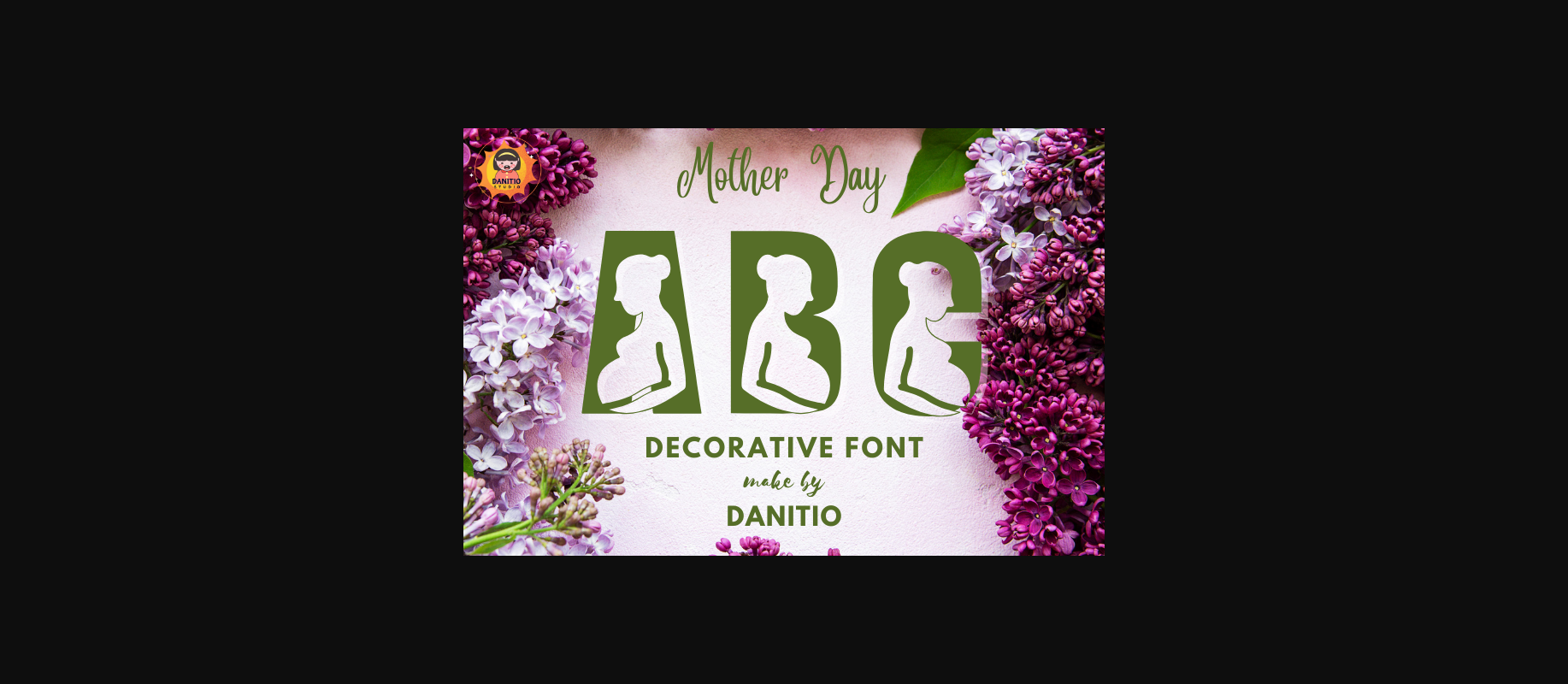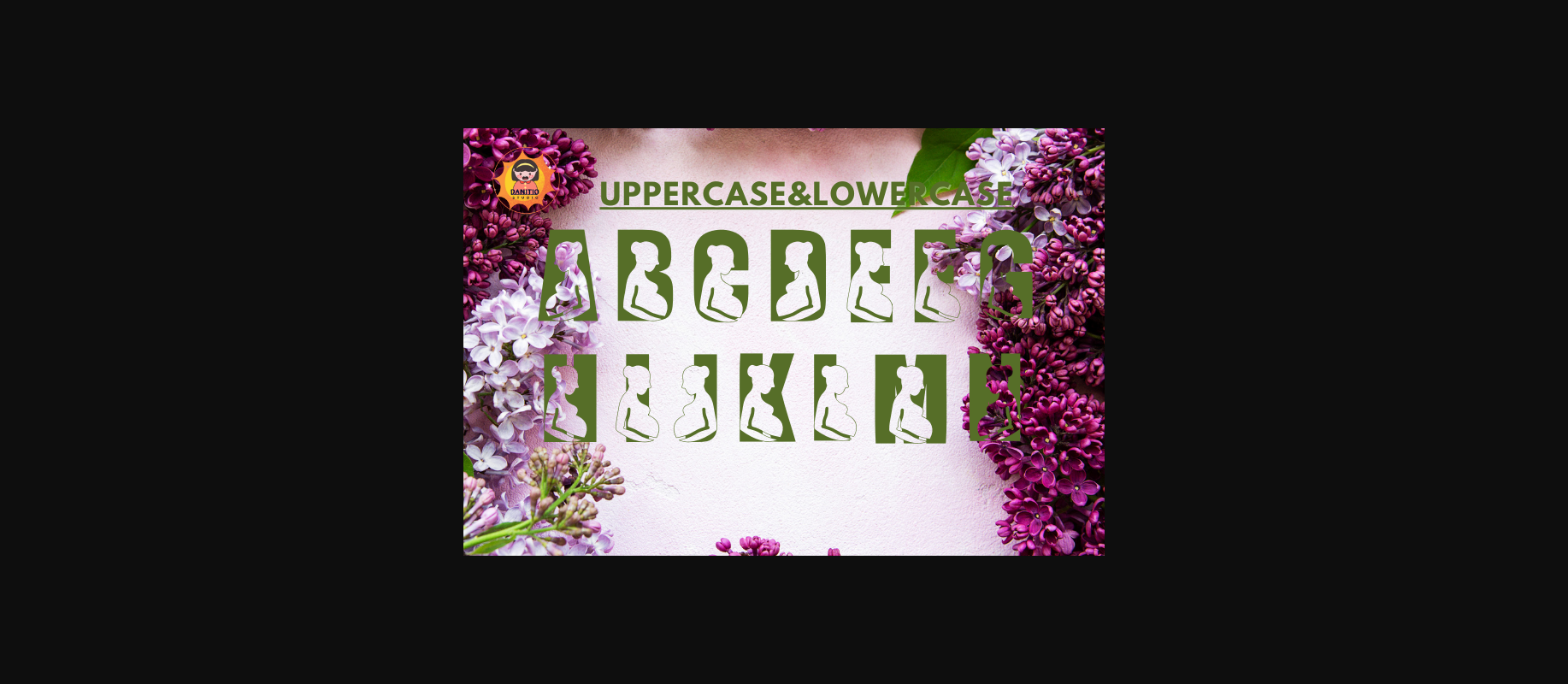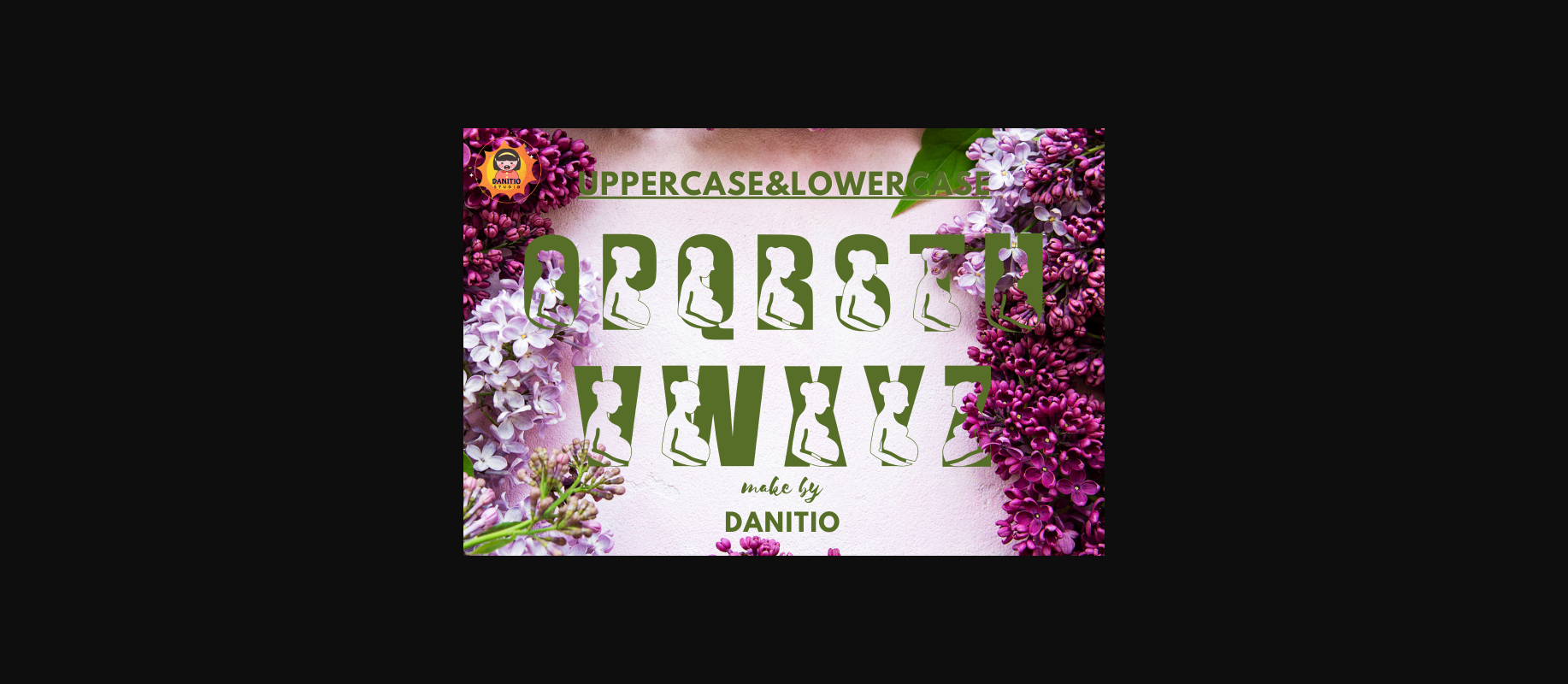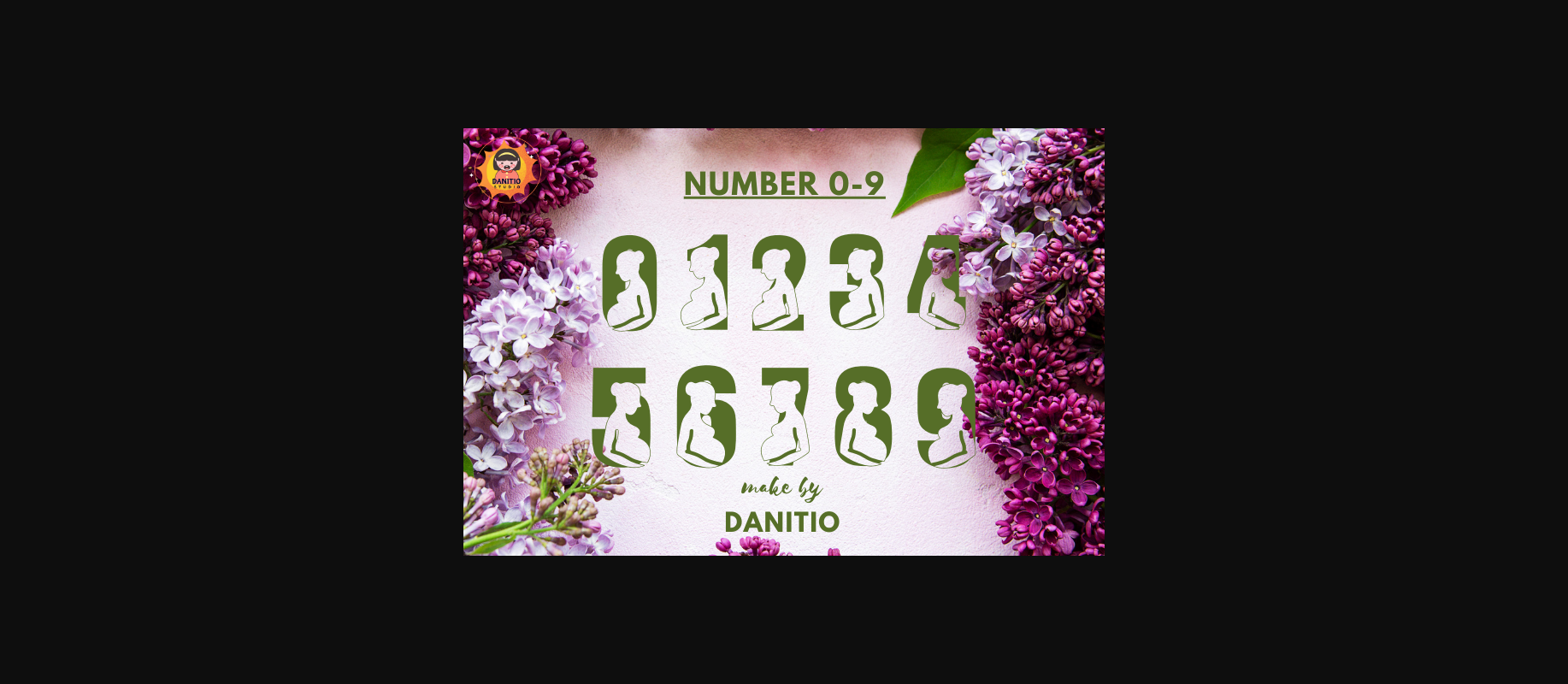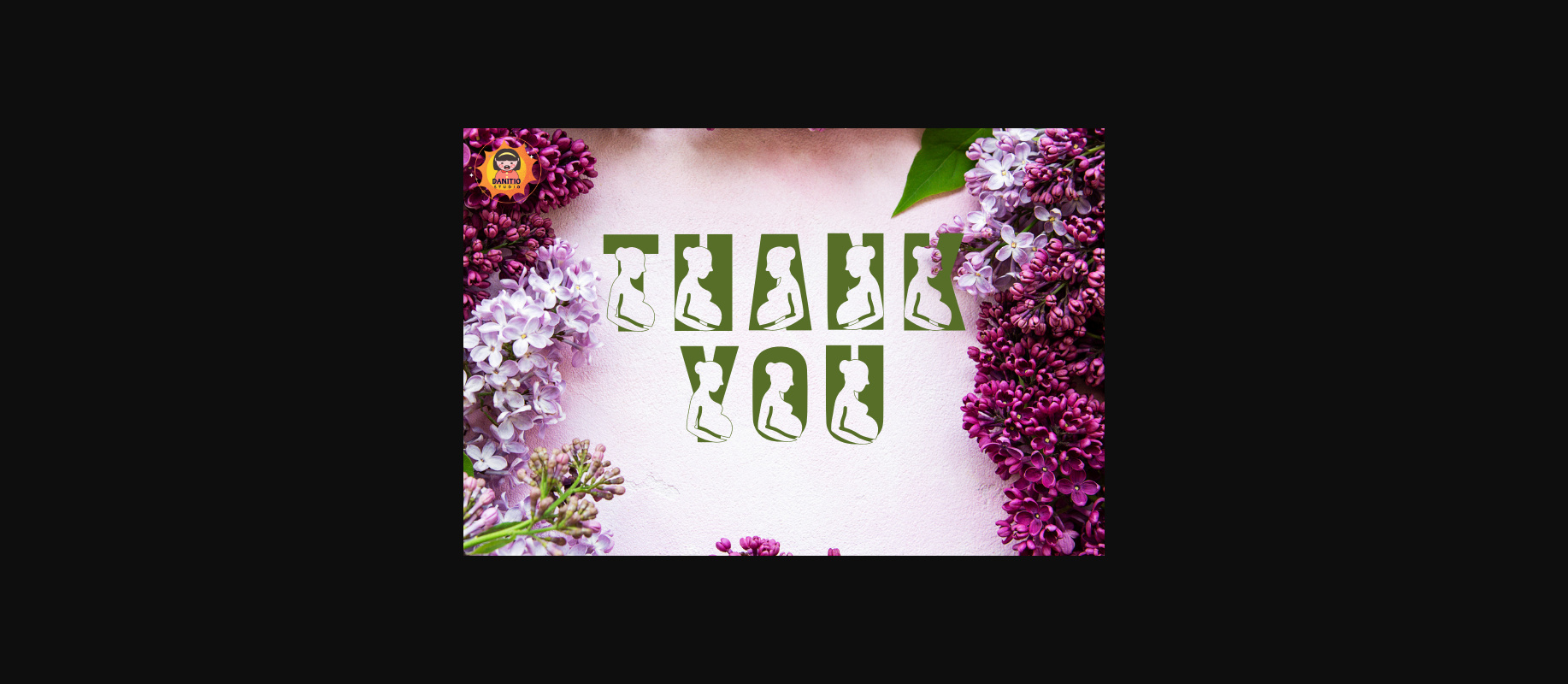
Mother Day Font
About Mother Day Font
Celebrate Mother’s Day with our charming font, designed to add a special touch to your projects. Featuring a loving mother embracing a pregnant belly with tenderness, this decorative font brings warmth and emotion to any design. The bold, easy-to-read letters make it perfect for posters, invitations, and greeting cards, ensuring your message is both heartfelt and clear. Honor mothers everywhere with this beautiful font!